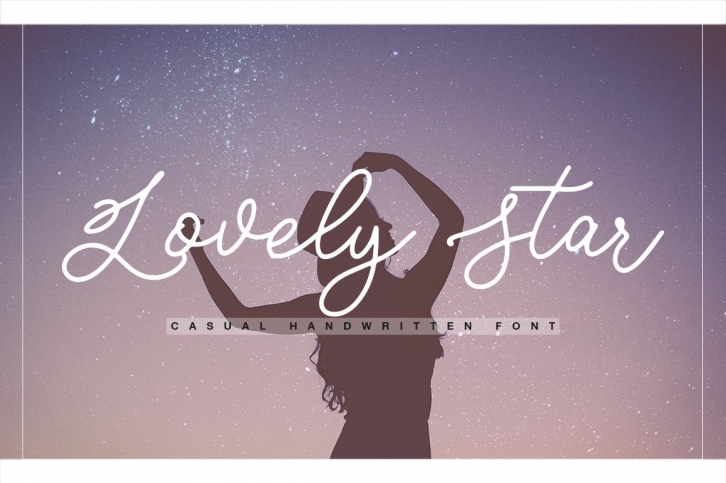
Lovely Star - a new fresh handmade calligraphy font.
Very suitable for greeting cards, branding materials, business cards, quotes, posters, and more!This font are perfect for wedding postcard. Or you can create perfect and unique design of your logo, blog, stationery, marketing, magazines and more :)
• UpperCase & Lowercase
• Numerals & Punctuations
• Multilingualcharacters(AÀÁÂÃÄÅCÇDÐEÈÉÊËIÌÍÎÏNÑOØÒÓÔÕÖUÙÜÚÛWYÝŸŸ ÆŒßÞàáâãäåæçèéêëìíîïðñòóôõöøùúûüýÿ)